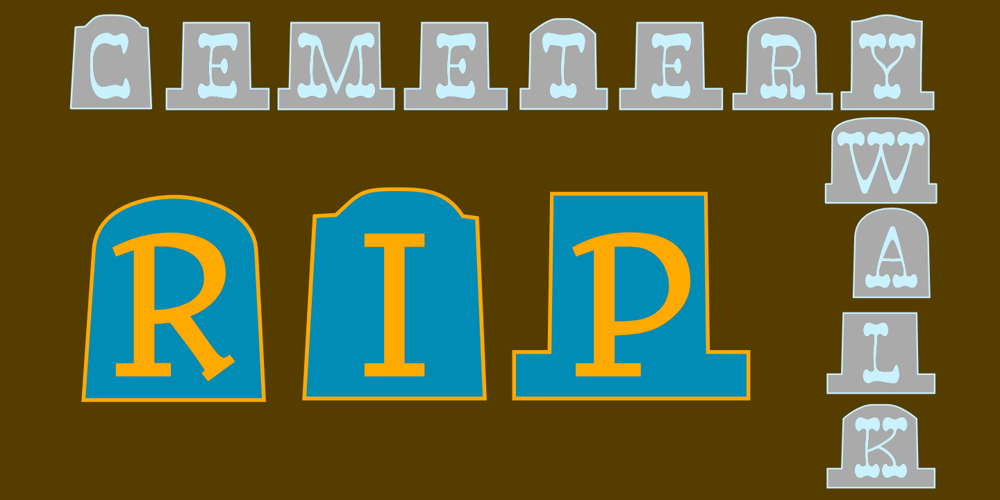
CemeteryWalk
CemeteryWalk font
CemeteryWalk Font Family was designed by Robert Schenk and published by Ingrimayne Type. CemeteryWalk contains 9 styles and family package options. I created CemeteryWalk in 2018 to illustrate a program for a local cemetery walk. CemeteryWalk places letters on pictures of gravestones. In 2022 I expanded the family by placing three different sets of letters on the gravestones. Each of the four different sets of letters on gravestones has two styles, one with black letters on white gravestones and the other with white letters on black markers (the bold style). The bold style can be placed beneath the plain style to add color or texture.All eight styles are caps only, with the lower-case letters having different shapes for the tombstones but the same letters as in the upper case. There is only one set of accented characters and it is where the upper-case letters are found. Each also has an alternate set of characters that are somewhat similar in appearance and it can be accessed using the OpenType feature of stylistic sets.A final typeface in the family is a picture font of items that may be found on old tombstones.